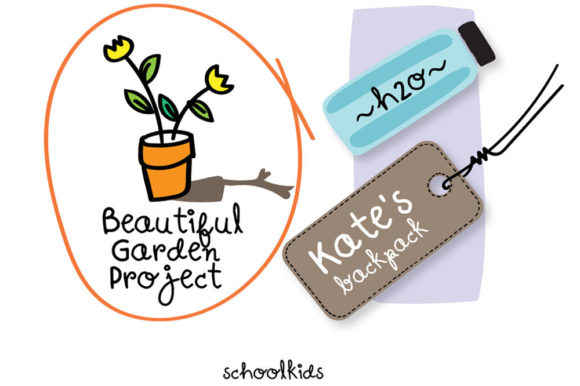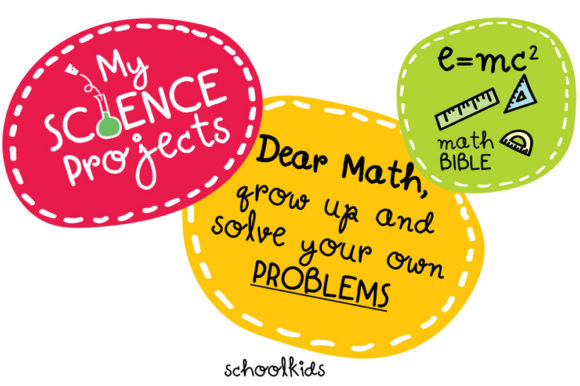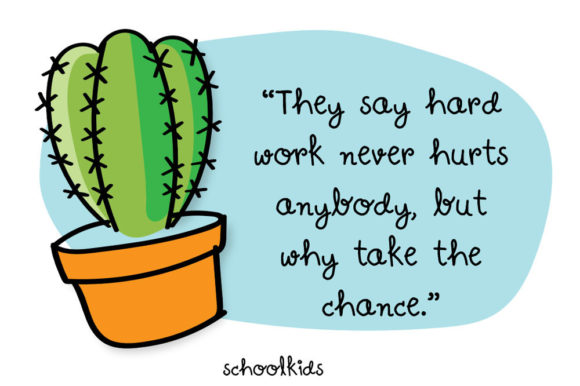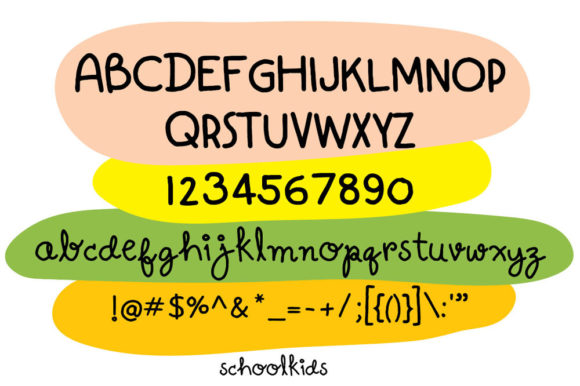
SchoolKids Font
About SchoolKids Font
SchoolKids is a handwritten font that can be used for all chalkboard quotes or teaching material! Its authentic handwritten look and feel will add a personal and realistic feel to your designs.